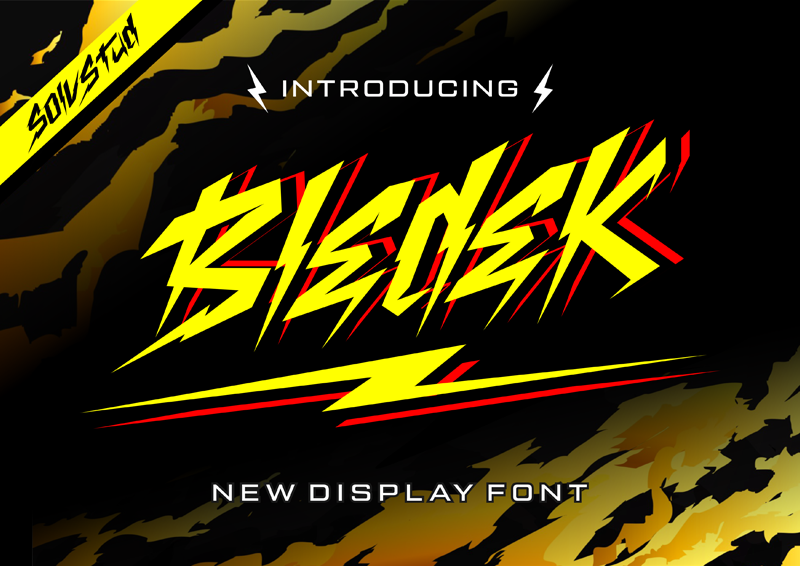
Font name: | Bledek |
Author: | Solv Vast |
Bledek�is unique display font with thunder character. This font suitable for poster, clothing, magazine, logo, branding, t-shirt�etc. Use this font for your cool design project. more info: solvstud@gmail.com https://www.creativefabrica.com/ref/2524472/ |